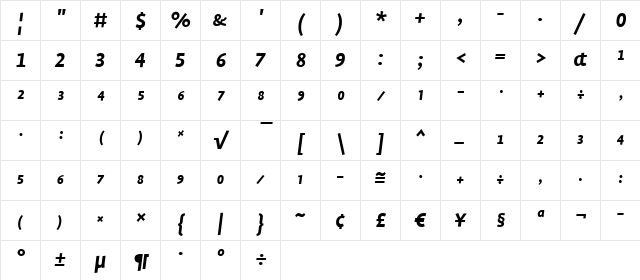
Profile Bold Italic
Foundry: by Martin Wenzel, published by FontShop International for the FontFont library. Profile is a trademark of FSI, Fonts and Software GmbH, http://www.fontfont.de
Design Context for Profile
Profile is a composed and adaptable typeface that performs quietly and consistently across a wide range of design contexts. The slanted form adds forward momentum and visual energy. Its bold stroke weight gives it real presence on the page.
Pro Tip: Use Profile for emphasis, pull quotes, and subheadings where its slanted energy can add rhythm to the layout.
Who designed the Profile Bold Italic font?